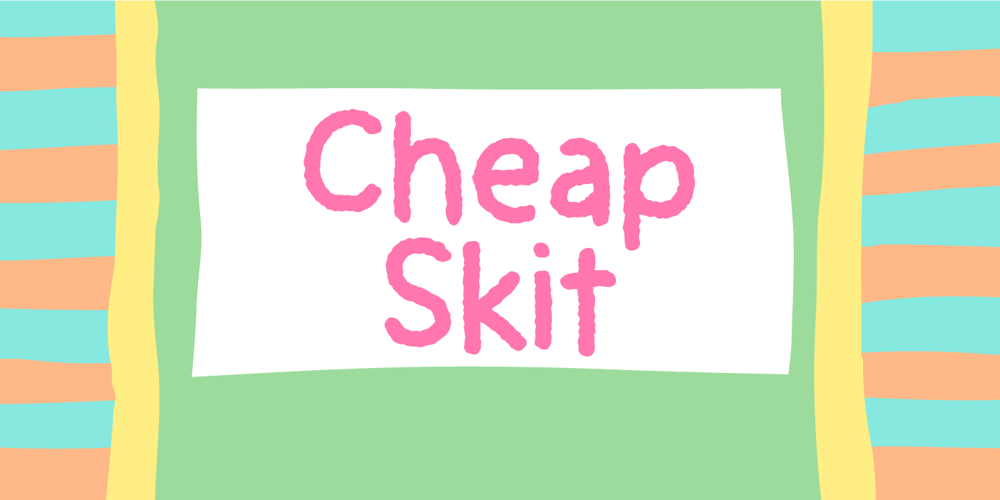
Cheap Skit
Cheap Skit font
Cheap Skit Font Family was designed by Jakob Fischer and published by PizzaDude.dk. Cheap Skit contains 2 styles and family package options. It doesn’t take long to see that Cheap Skit is a super legible, easy going font. It is intended to be used where text needs to be clear and legible, but have certain amount of handmade energy. I’d say that products that has something to do with children (toys, clothes, games, posters …) or something organic, recipes, bookcovers …